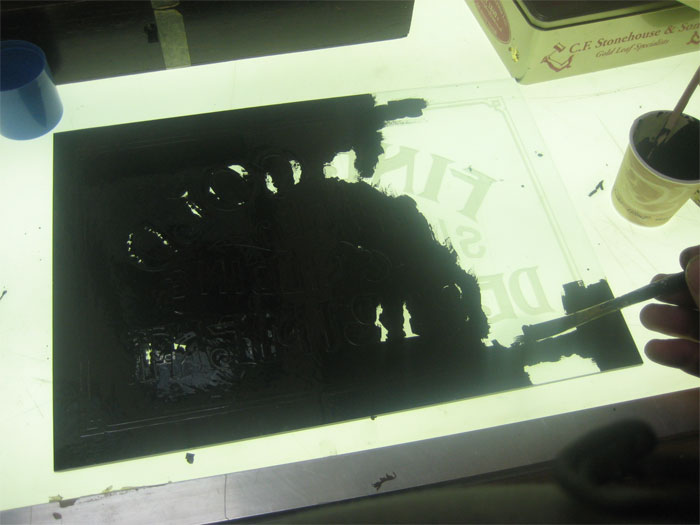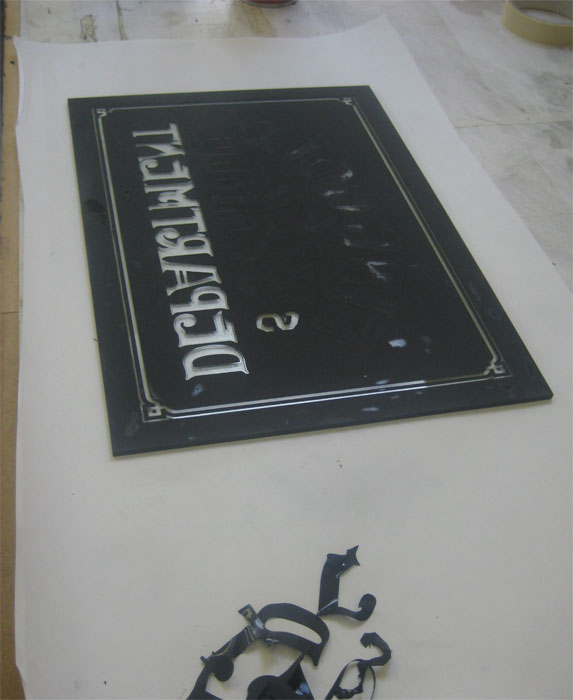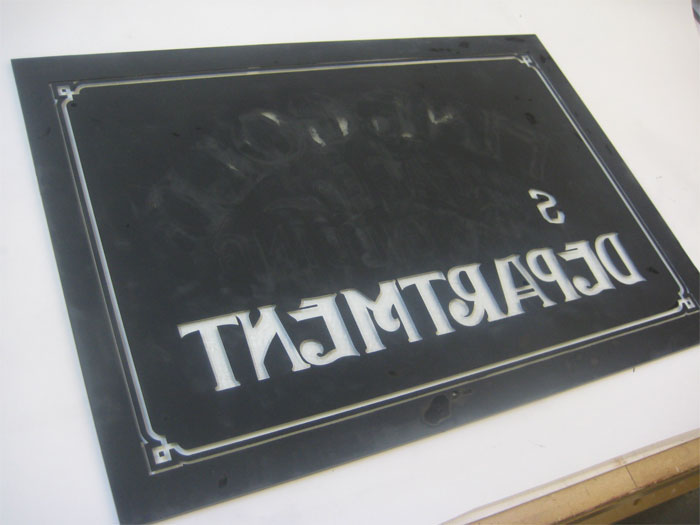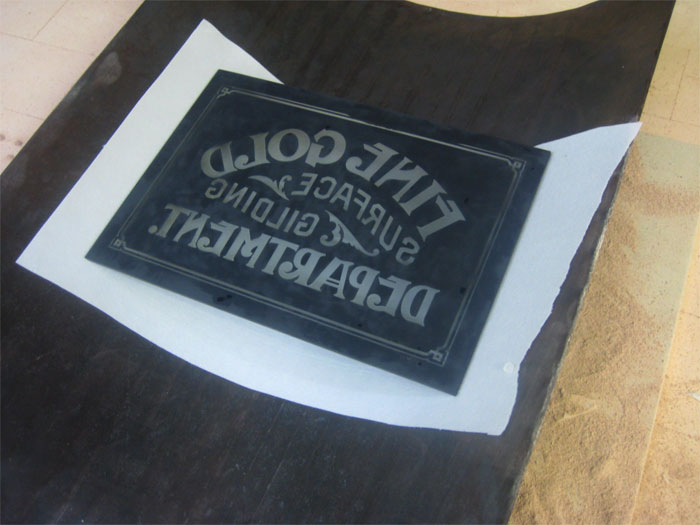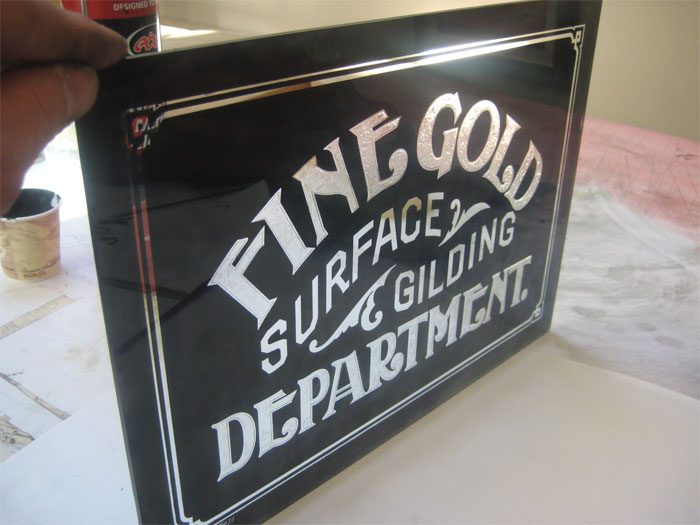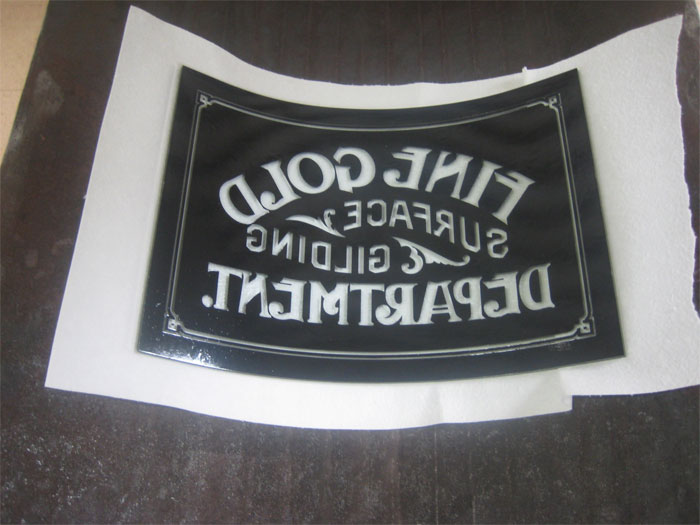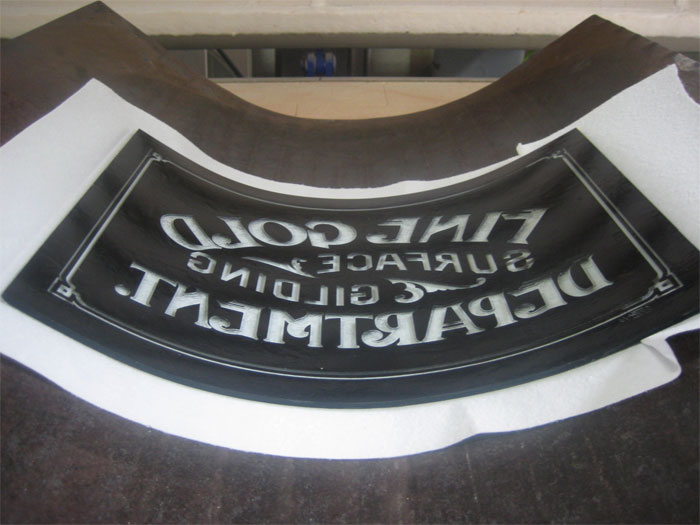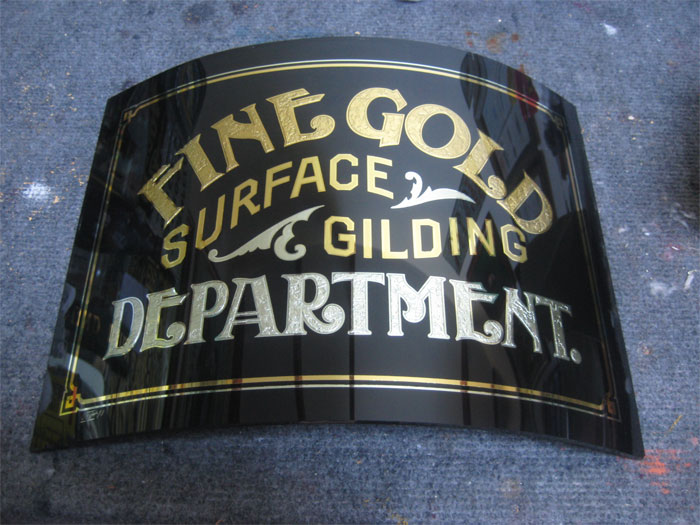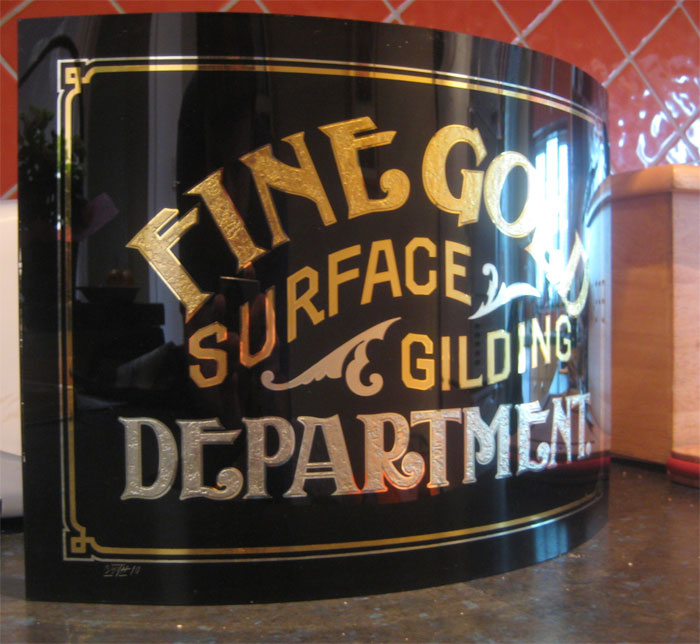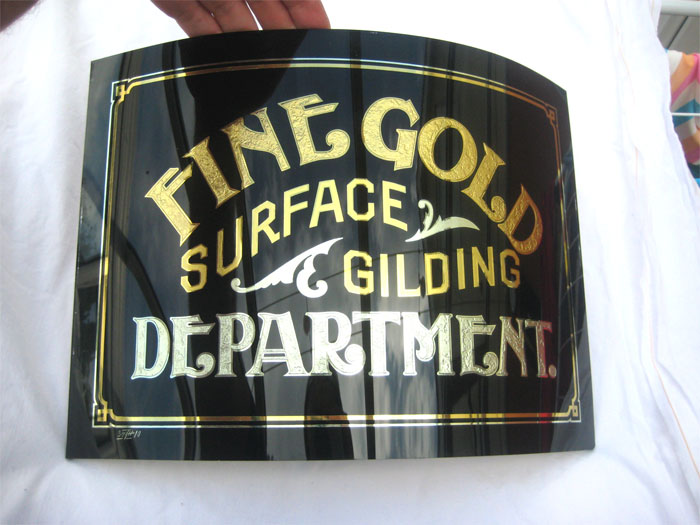
Heat Bent Glass Signs with Paint
I have been trying to find a paint that can be fired into glass at high tempratures while bending the glass into a curve. I made some panels in the past but was always left with a slight translusent finish and some break down and flaking.
I found a company here in this country that will make paints for this type of work and poss acid resist single etch.
I tried a stained glass powder paint which works but is too messy and leaves halos of frosting to the edge of letters. This new paint can be screened just like Fine Gold enamel and has an opaque finish once screened. Pat also put me onto a company that makes a paint simalar to this one but I am still waiting for a sample. This paint works very well with vinyl masks as you will see in these photos attached. I have a glass sign 3' x 4' to make for a gents hairdressers and it needs to be curved , my options are only screening due to the very fine detail but with this method it is poss to achieve permanent paint kiln fired into glass plus no breakdown of paint when gilding .Its downside is that you are left with an edge so gilding with ivory soap is recomended so that the gold floats into and fills the slight ridge.
I used some artwork that was sent to me by I think Danny Barronian a couple of years ago. Seemed apropriate to try it out on this design.
I forgot to add that the letters Fine Gold and Department were acid etched over brunswick black stipple and the Surface gilding text was hand signwritten with a clear varnished line leaving a glow line to shine at the edge
I was thinking about this process after we talked and envisioned how it might play out as well as doing the gilding it all in one.
After applying the black glass enamel ink, you should try spraying in some gold chloride in the open lettering areas after you pull the masking. (you might not even have to worry if the gold spray partially mists over the black enamel coating.)
That way while bending the glass in the mold, the enamel ink will fuse and the gold will fire into the letters all in one shot. Very permanent and you would not have to deal with the raised letter ridges and gold leaf problem.
The only thing that may have to be done differently might be a need to do two firings. First firing would be to fire the glass flat with only the black glass enamel so that it is completely set into the surface, then spray the gold chloride. Then on the second firing place the piece into the mold and bend and fire the gold onto the glass.
You would ONLY have to do the process in two firing if there was any conflict in trying to fire the "wet" black enamel and the "wet" gold in one go.
Hey, as long as there is a good sharp line without the two flowing together, doing it all in one go would be really great!
I was thinking along these same lines only yesterday Pat. I ordered some gold chloride last week to try a second test ,I agree the first coat would need to be heated and then a second firing with the gold.
Size for your kiln would be around 5ft x 4 ft ,I find this big enough for the work I need to do but you never know what could come in the future so allways
keep that in mind when buying a kiln. I have seen them 15 ft long and 8 ft wide ther are probably bigger ones out there also.
My kiln is electric and is controlled by a computer reading ,easy to use and very accurate. The kiln I have came from Kilncare in Stoke on trent UK.